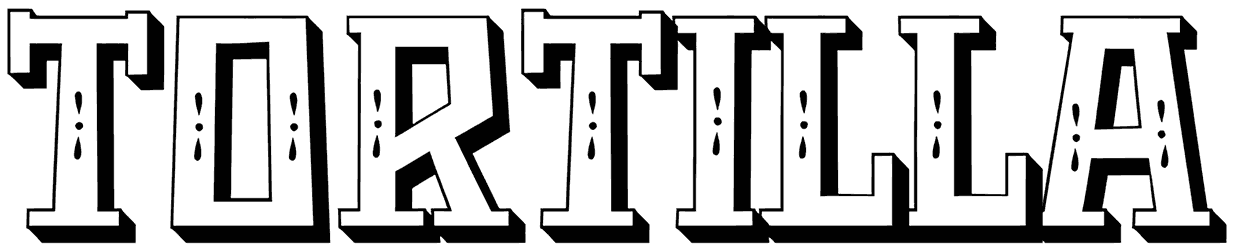
Tortilla Font
Tortilla is an outline font that gives your work a stylish look without effort. You can use this shade font anywhere that needs a unique feel to ensure success.
By using this Mexican font in logos, printing on t-shirts, and magazine headers, you can attract a large part of the viewer and make your program uniquely attractive. So, if you want to appear elegant with an outfit with Tortilla, you can shine without lowercase letters.